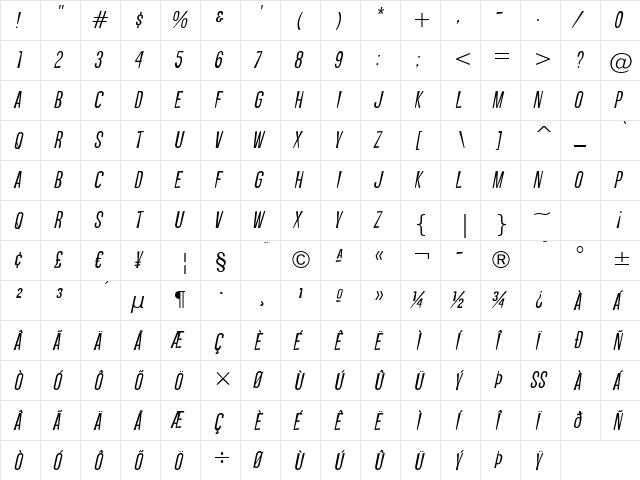
Vanishing Boy BTN Light Oblique Font Preview
| Style | Oblique |
Design Context for Vanishing Boy BTN Light Typeface
Vanishing Boy BTN Light takes a measured approach to typography — its balanced proportions and neutral character make it a reliable workhorse for both digital and print work. Its italic angle brings a sense of urgency and motion to the letterforms. The delicate stroke weight brings airiness and refinement to layouts.
Pro Tip: Use Vanishing Boy BTN Light for emphasis, pull quotes, and subheadings where its slanted energy can add rhythm to the layout.